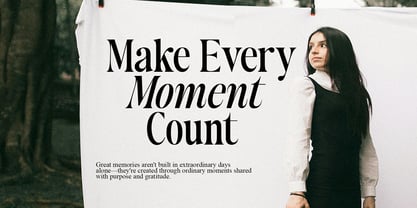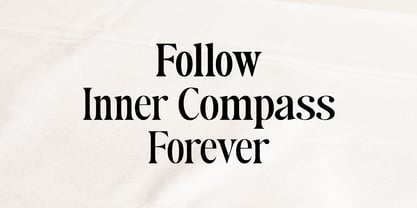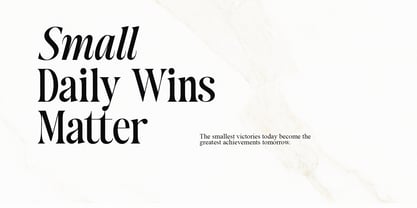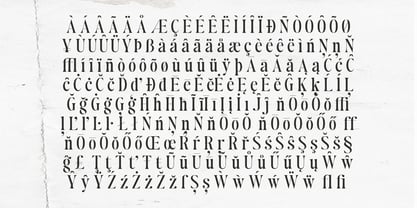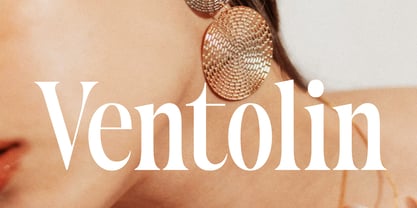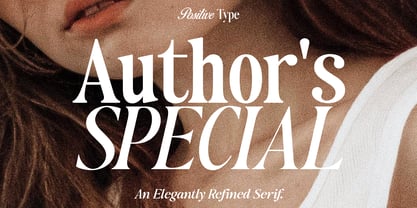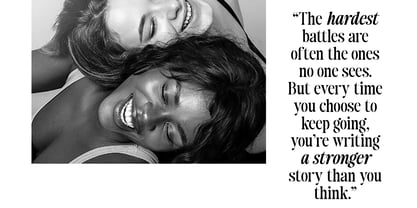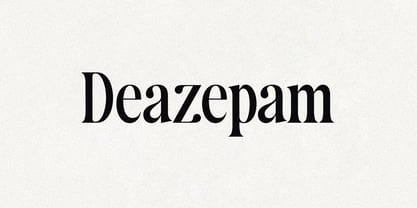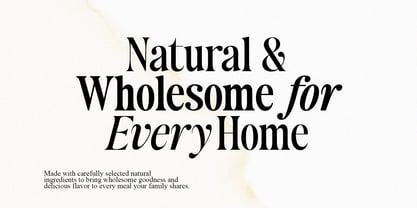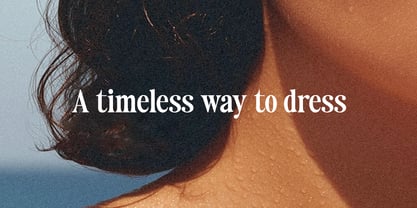
Authors Special
The Authors Special Font Family was designed by Nur Hayati and published by Positive Type. Authors Special contains 14 styles and family package options. More about this family
Author's Special
An Elegantly Refined Serif Typeface
Author's Special is a sophisticated serif typeface designed to bring timeless elegance and refined character to every project. Featuring graceful curves, high-contrast letterforms, and beautifully balanced proportions, this typeface effortlessly combines classic inspiration with a modern editorial aesthetic.
Whether you're creating luxury branding, fashion editorials, wedding stationery, magazine layouts, premium packaging, or elegant social media graphics, Author's Special delivers a polished and memorable typographic presence.
With four carefully crafted styles, this family offers the versatility to create harmonious typography while maintaining a consistent visual identity. Use the Regular style for refined body text, Italic for expressive emphasis, Contrast for dramatic headlines, and Contrast Italic for sophisticated editorial compositions.
Font Features
Uppercase & Lowercase Characters,Numbers & Punctuation,Multilingual Support,Ligatures,Stylistic Alternates,Elegant High-Contrast Serif Design,Perfect for Print & Digital Projects,PUA Encoded.
Perfect For
Luxury Branding,Editorial Design,Fashion Magazines,Logos & Wordmarks,Wedding Invitations,Book Covers,Cosmetic & Beauty Packaging,Restaurant & Café Branding,Social Media Templates,Website Headlines,Certificates,Product Packaging,Premium Marketing Materials.
Designed with precision and attention to detail, Author's Special offers a refined balance between sophistication and readability, making it an excellent choice for designers seeking a distinctive serif typeface with lasting elegance.
Create beautiful typography with confidence and let Author's Special elevate your next creative project.